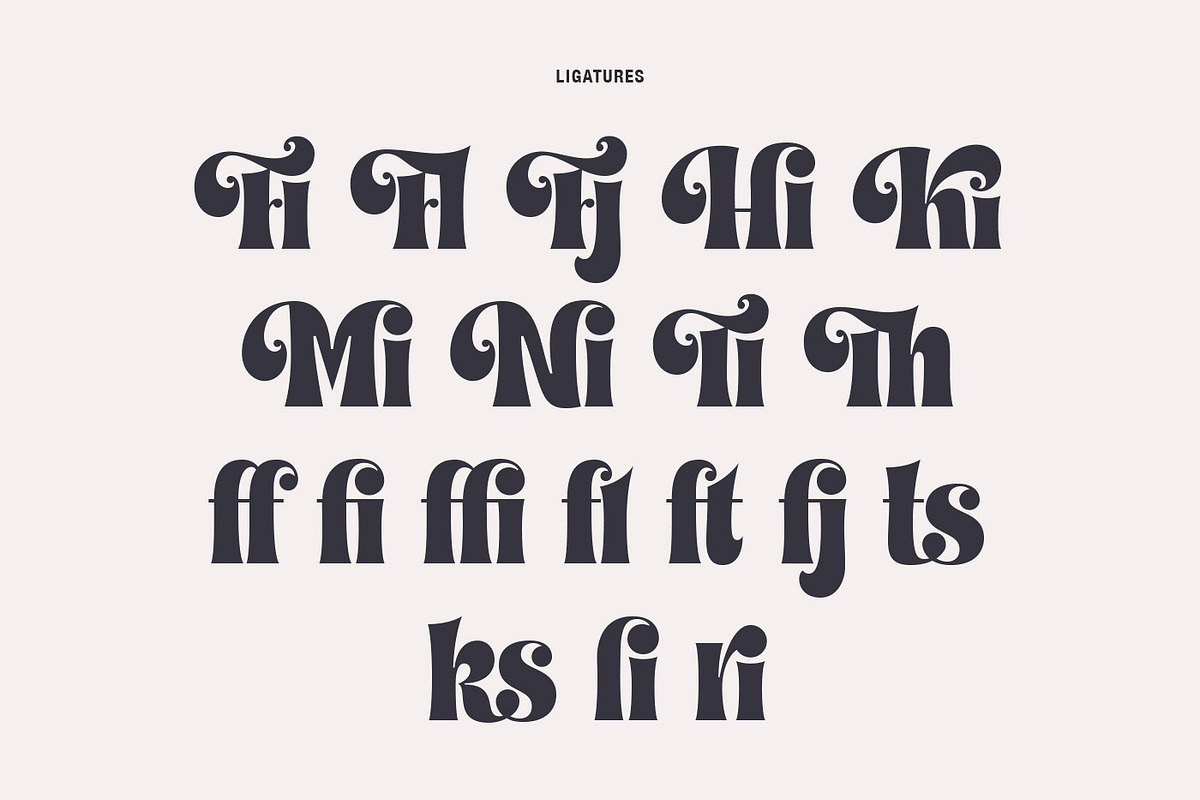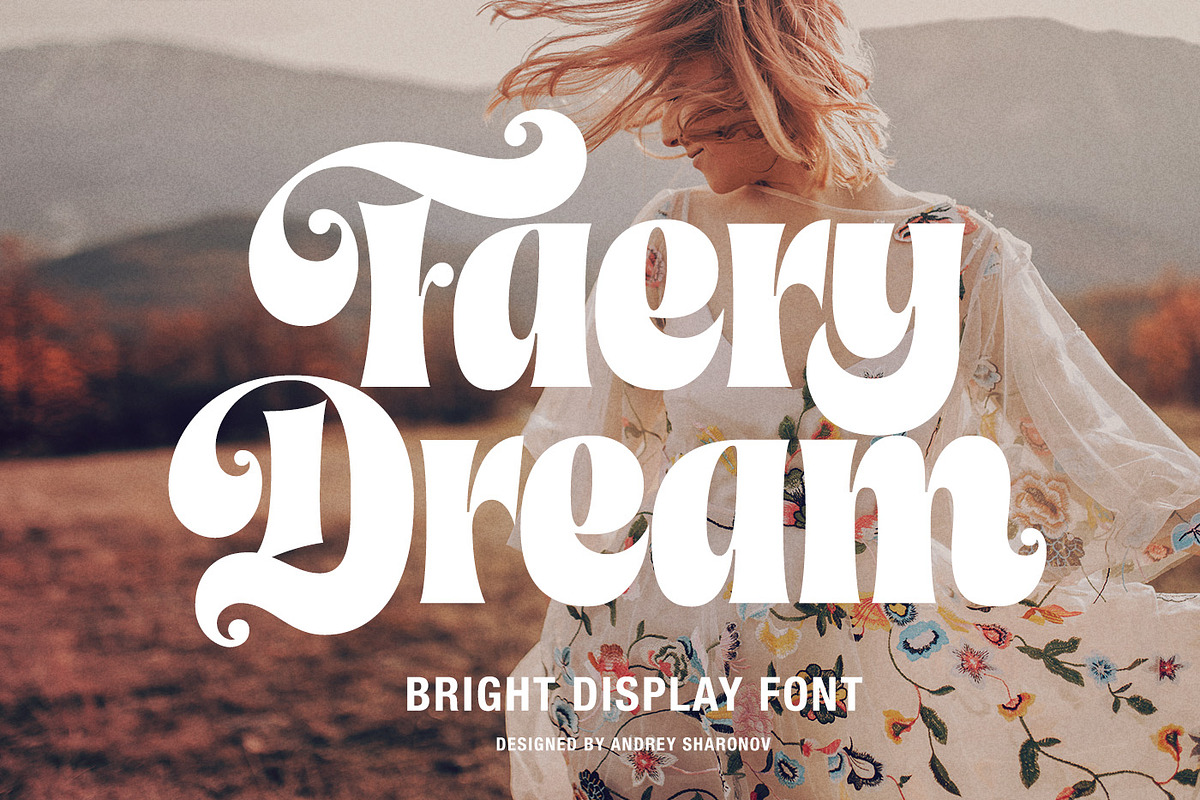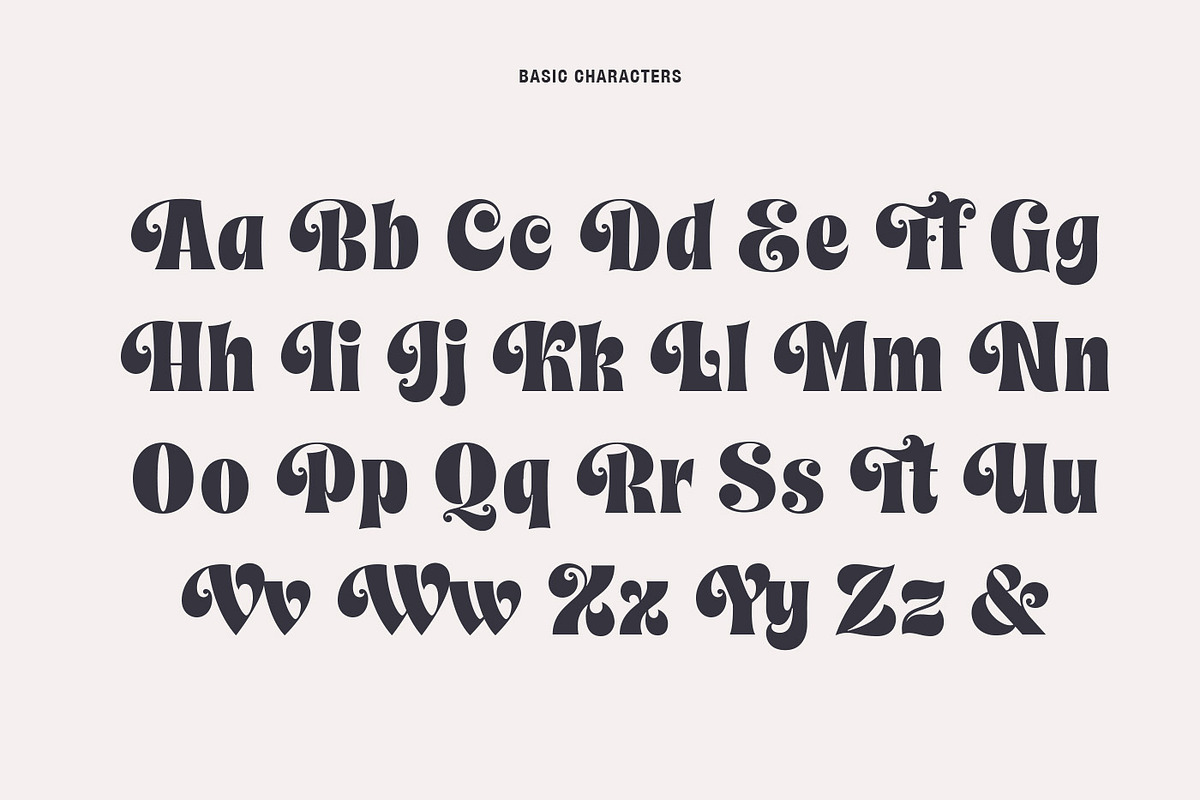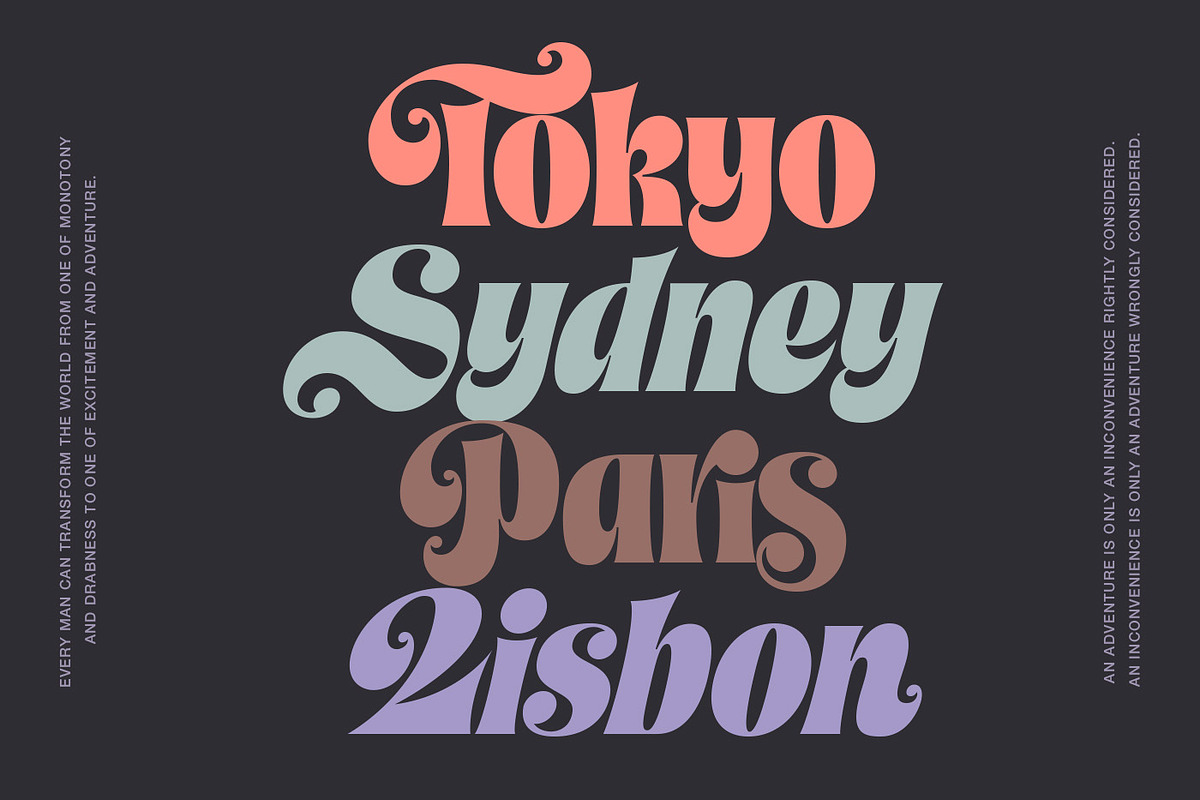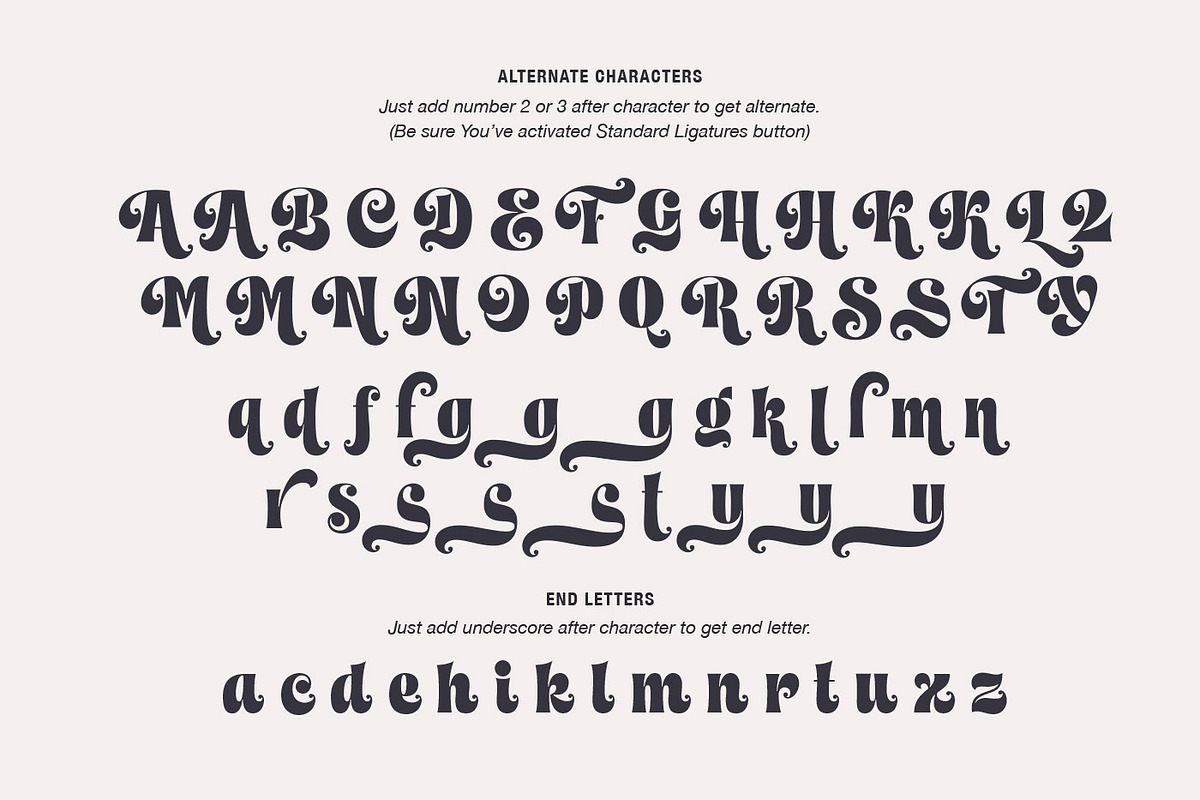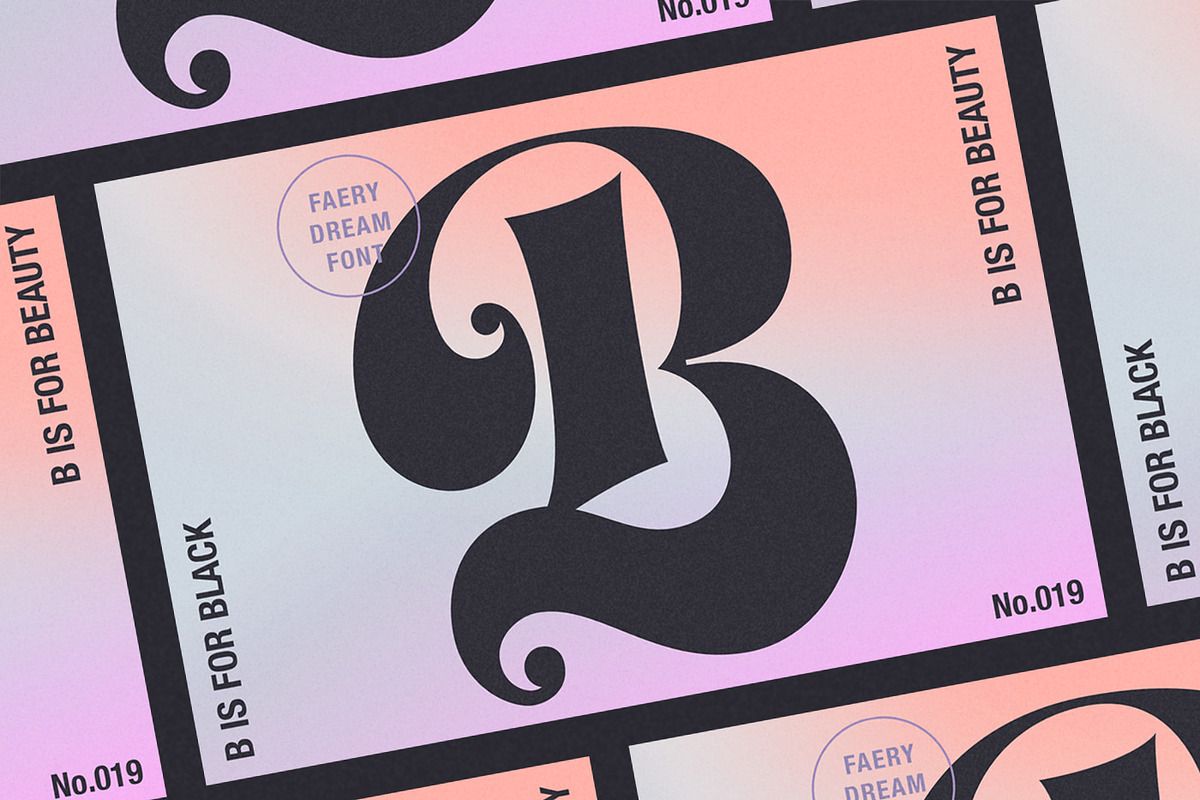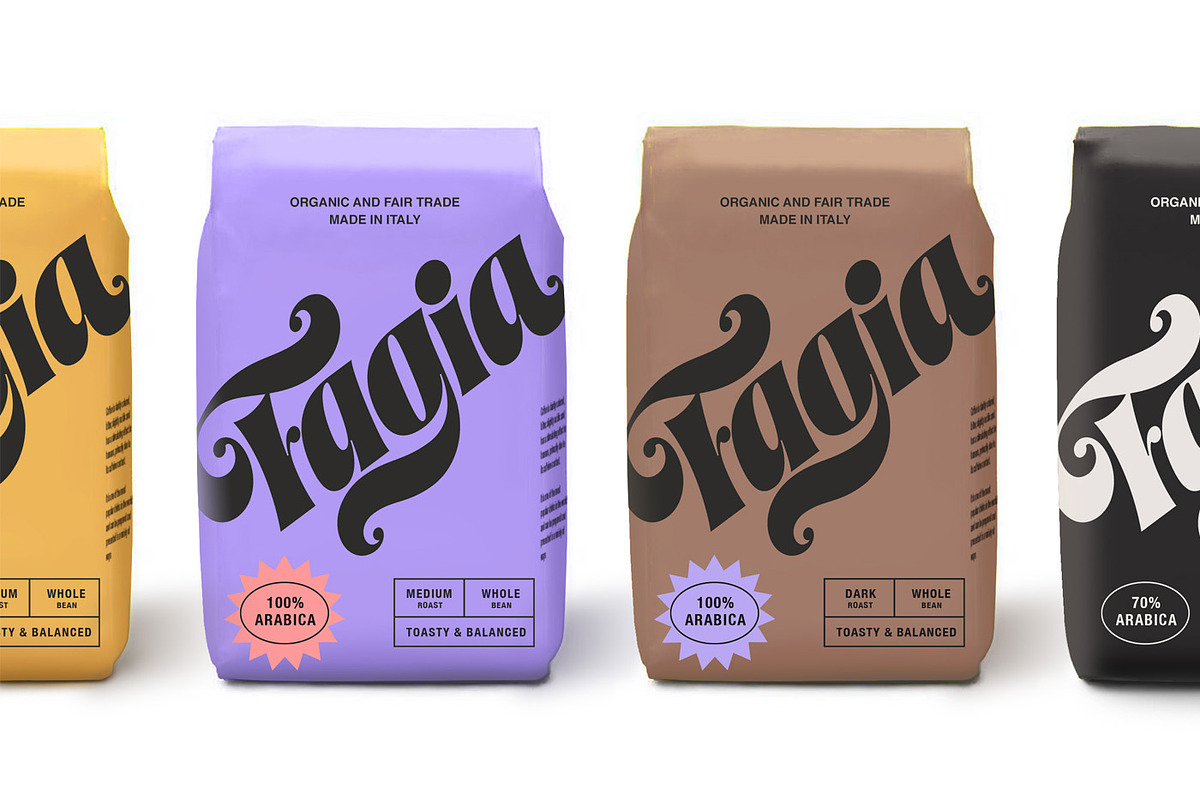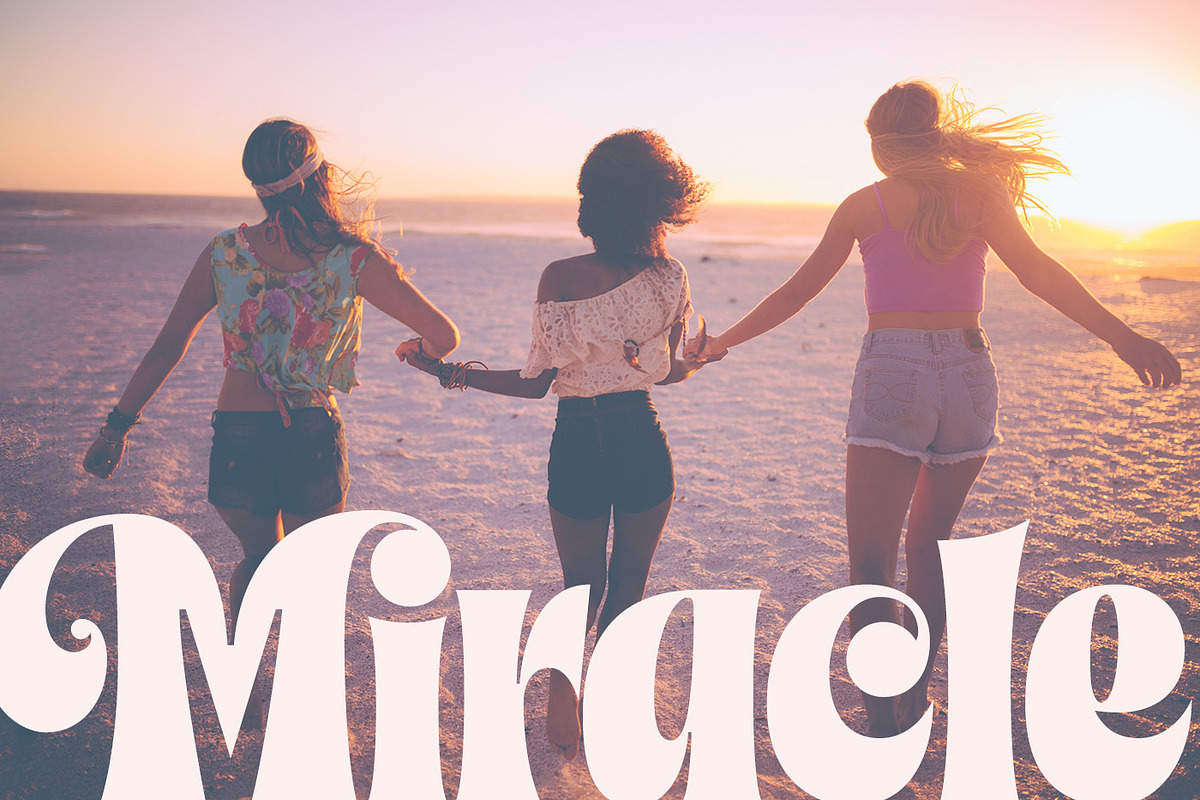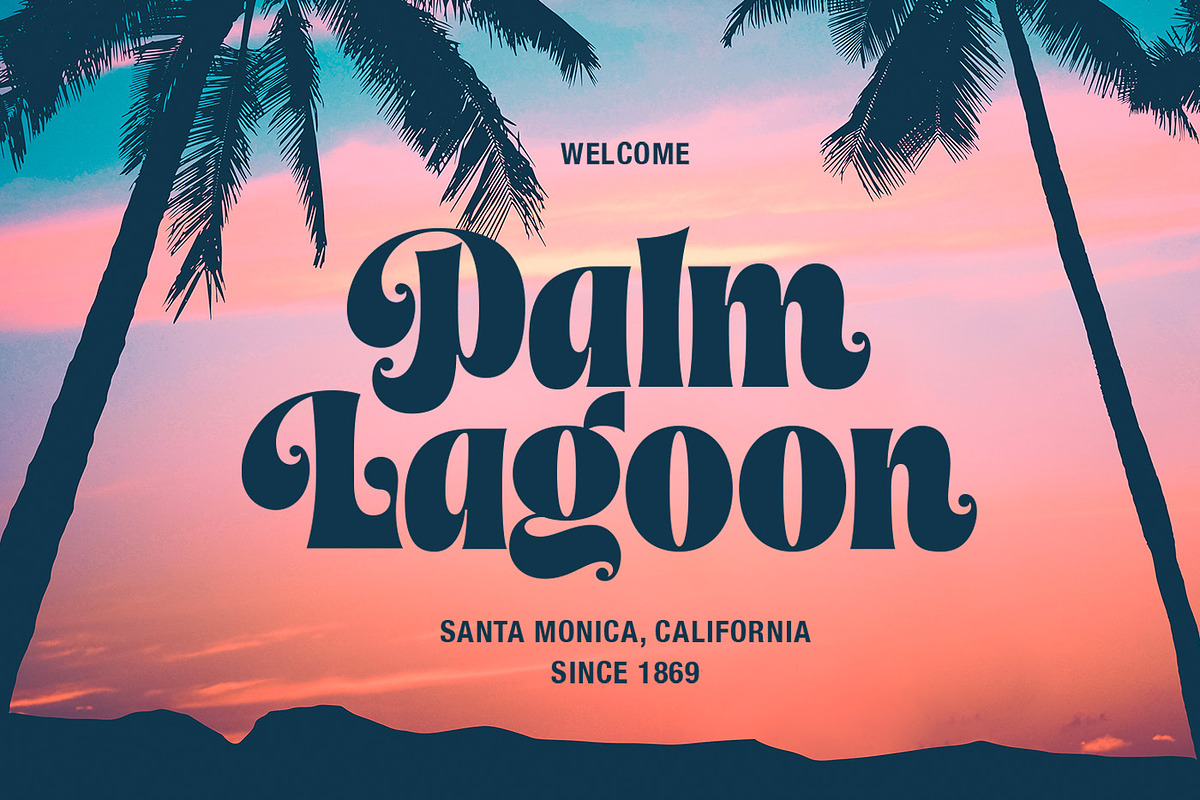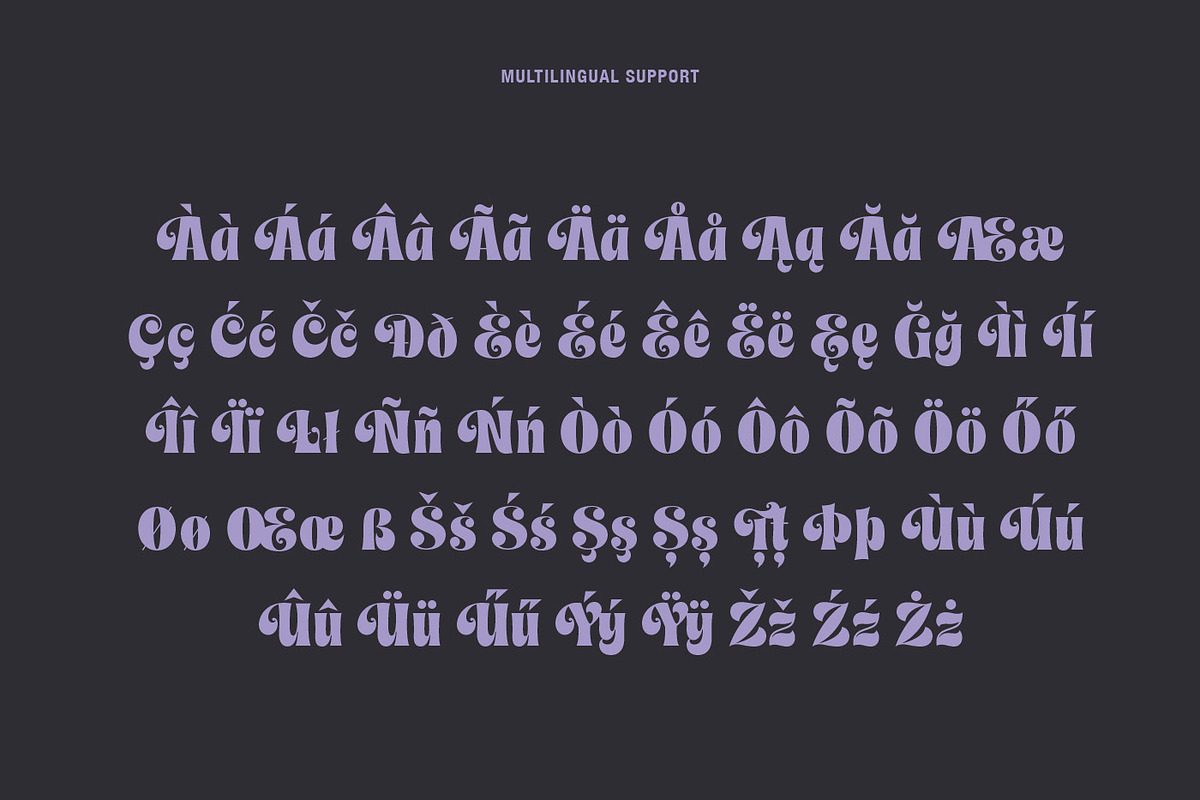
Faery Dream Display
Faery Dream is a modern high-contrast display font with a bright, positive personality. Its clean letterforms and slightly curly terminals create a friendly and welcoming mood in any design.
The font comes in Regular and Oblique styles and includes OpenType features such as stylistic alternates and standard ligatures. The easiest way to access alternates is by adding a number after a character (e.g. A2, A3) or an underscore after the final letter. You can find the full set of alternates in the font presentation.
Faery Dream is perfect for headlines, magazines, logotypes, food packaging, advertising, and much more.
Supports the following languages: Danish, Dutch, English, Estonian, Faroese, Finnish, French, German, Hungarian, Icelandic, Italian, Norwegian, Polish, Portuguese, Slovene, Spanish, Swedish, Turkish.